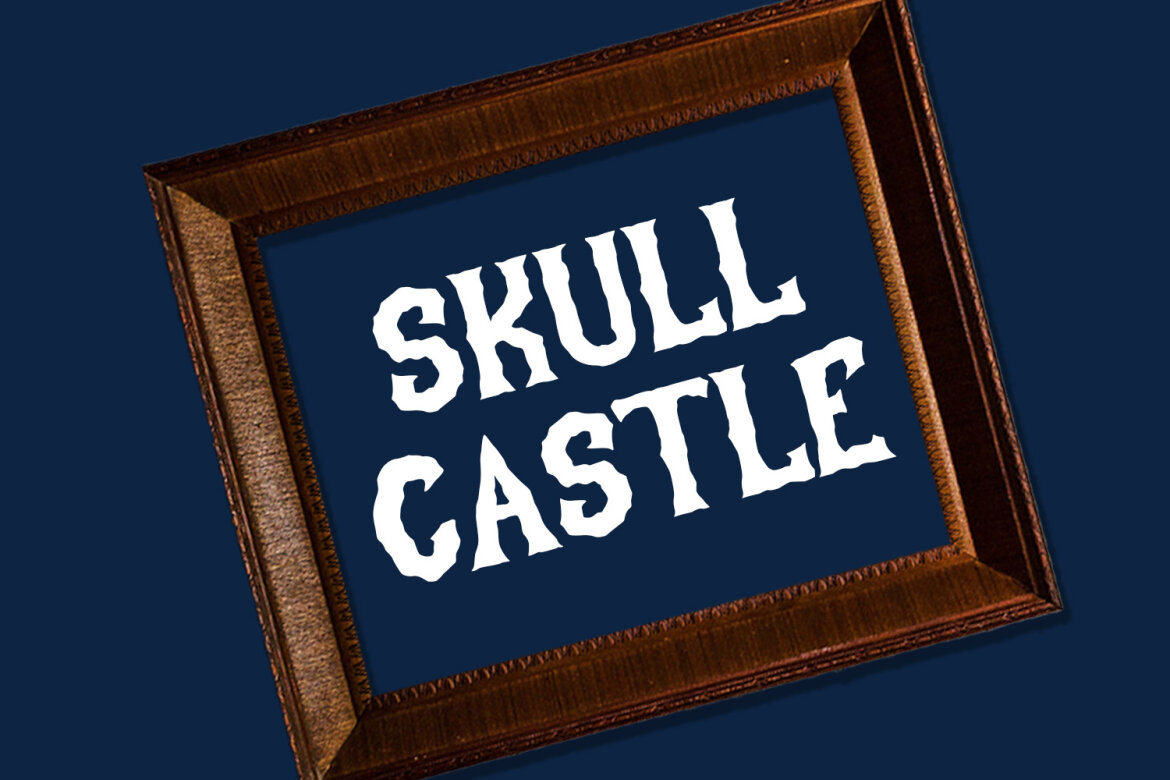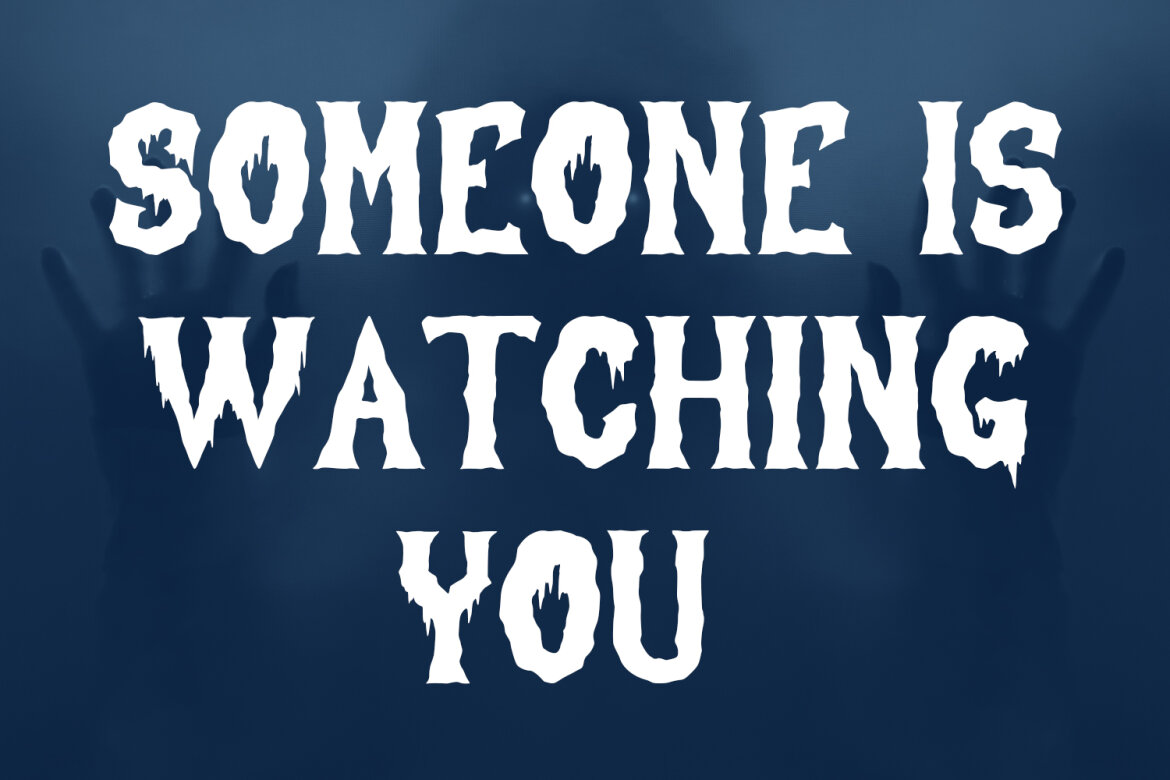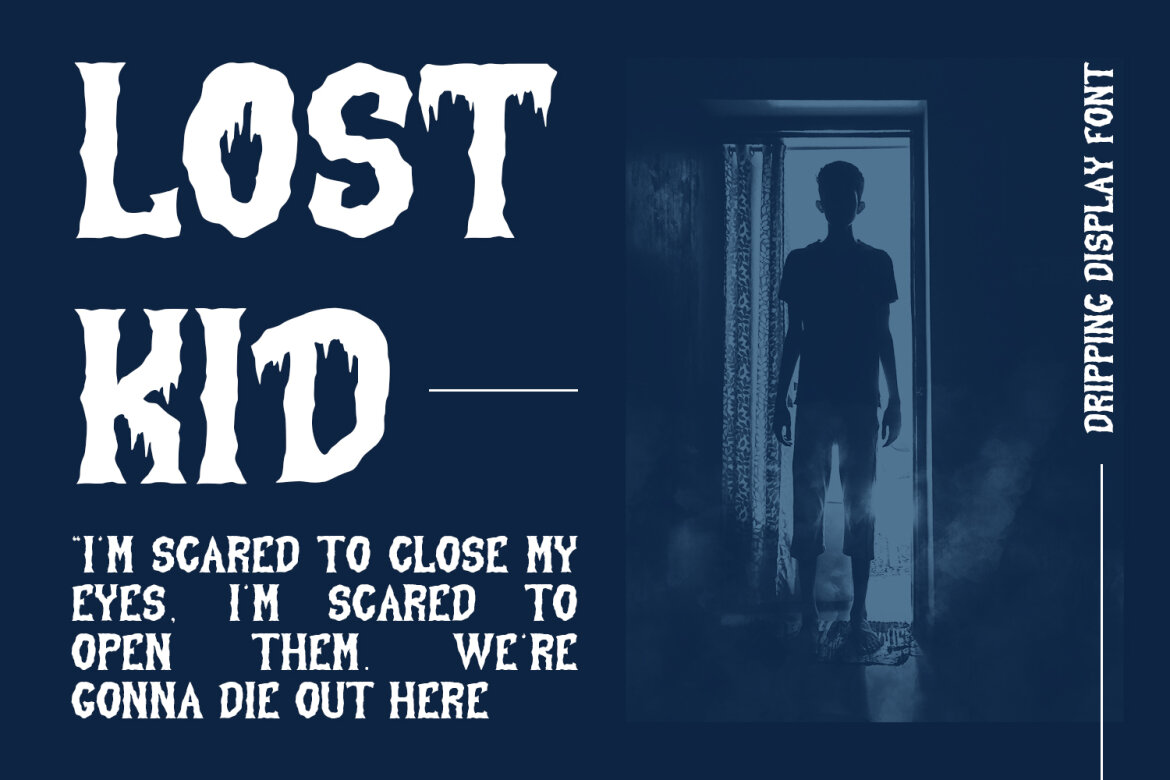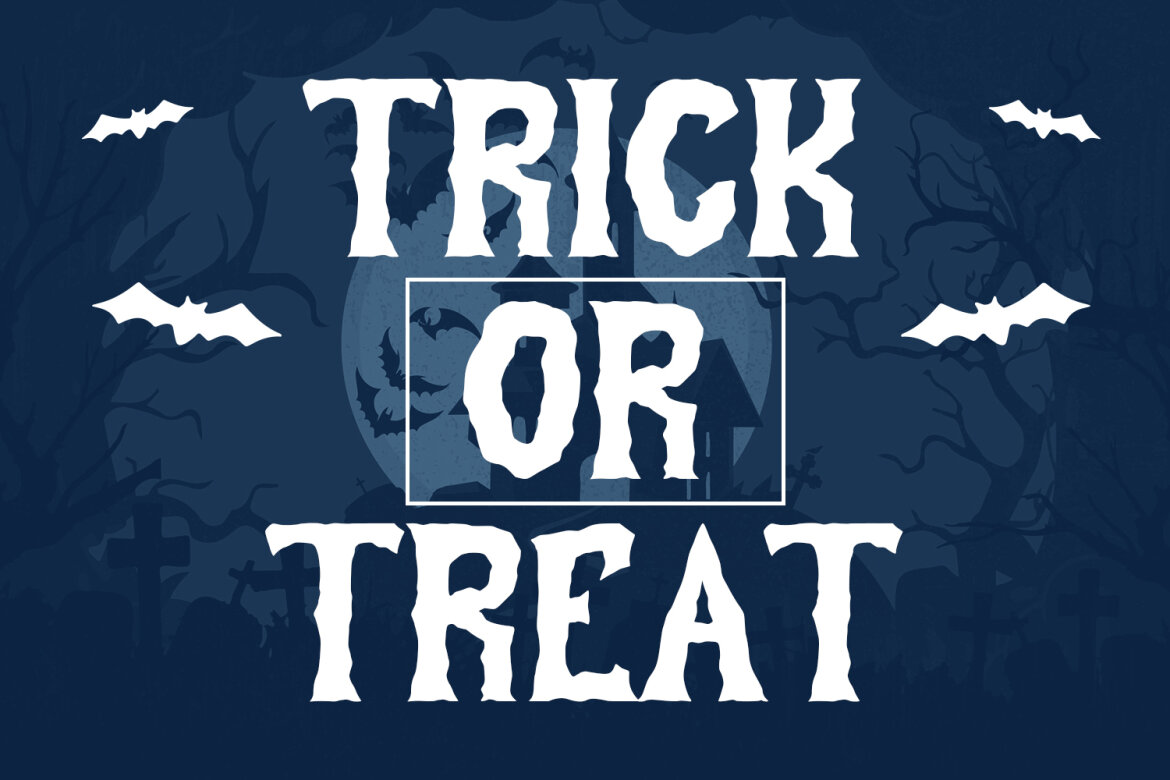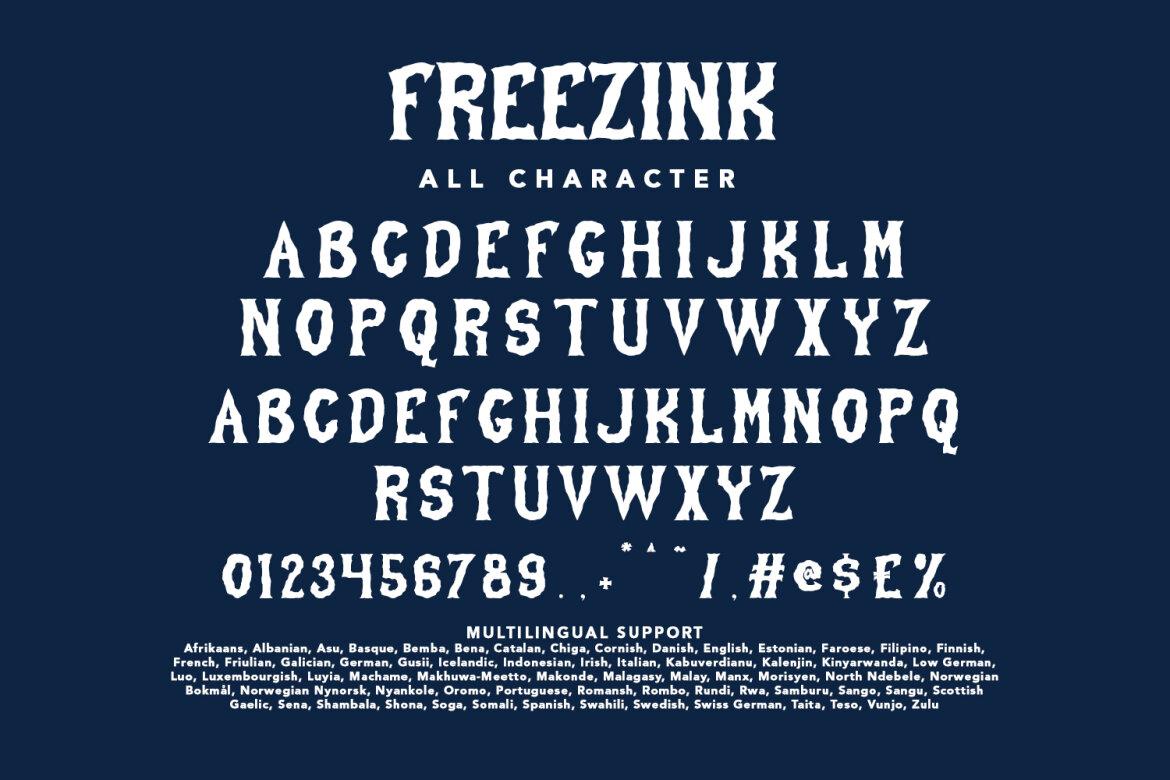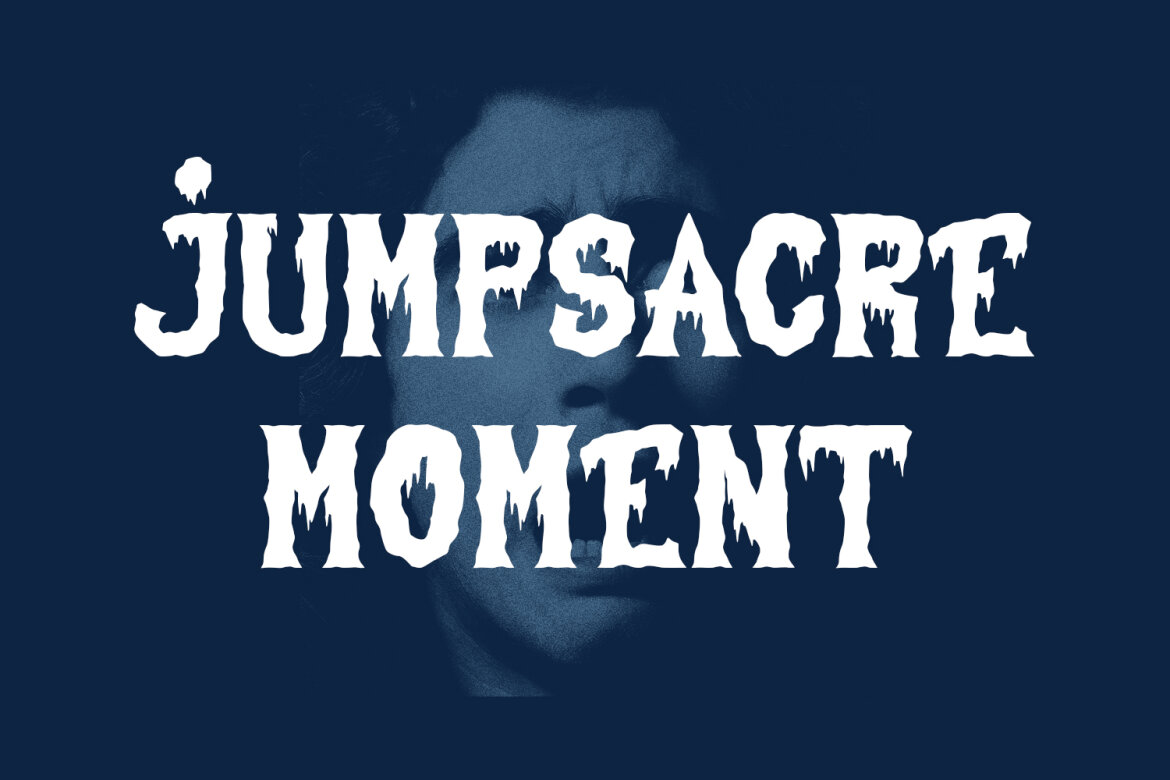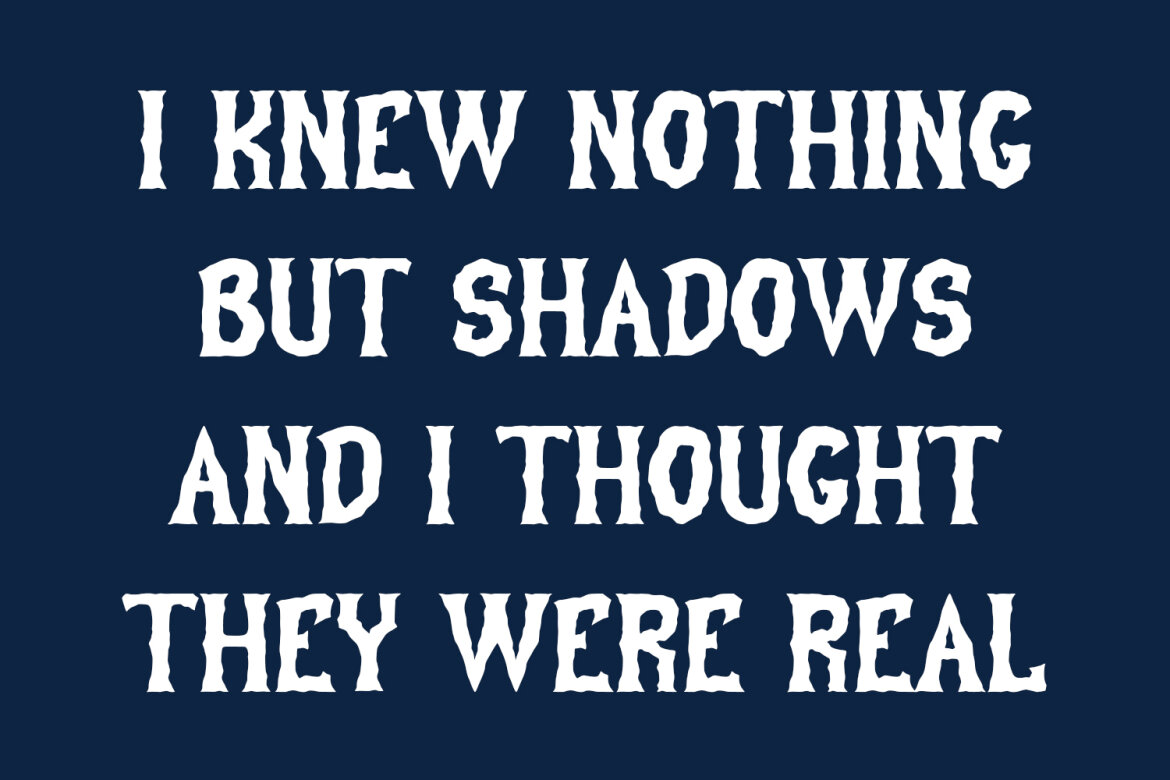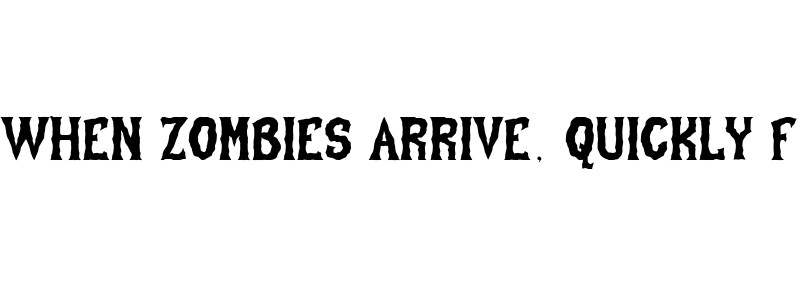
Freezink Dripping FREE Font Halloween
Freezink
Freezink is a modern Decorative sans serif Display font. Bold stroke, fun character with a bit of ligatures and alternates. To give you an extra creative work. Freezink font support multilingual more than 100+ language. This font is good for logo design, Social media, Movie Titles, Books Titles, a short text even a long text letter and good for your secondary text font with script or serif. Make a stunning work with Freezink font.